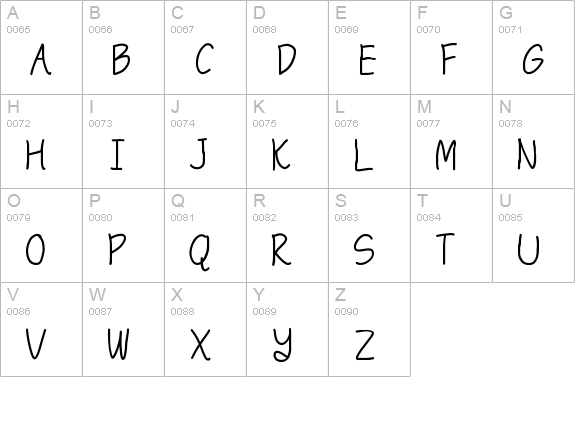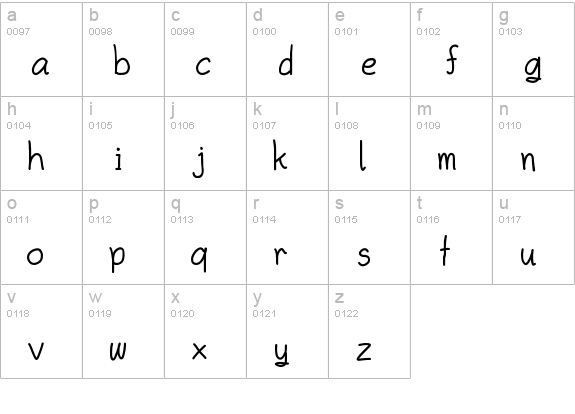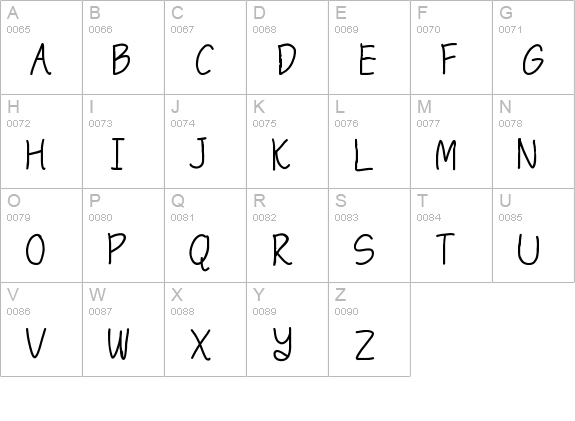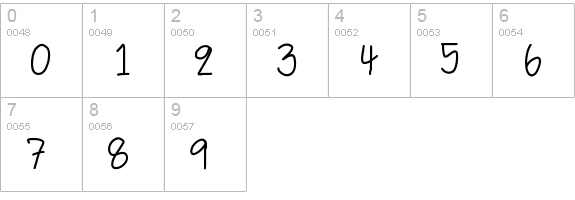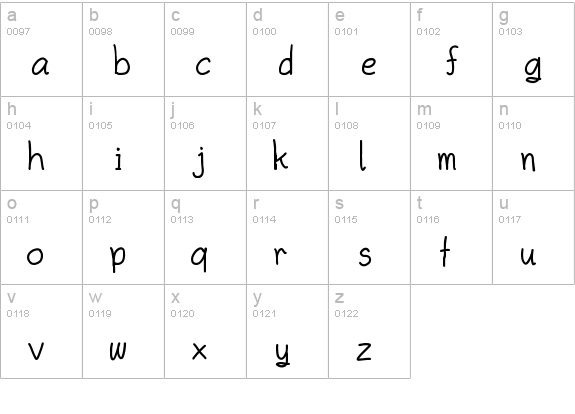
GarrklolsDumblyMadeFont is a completely free font in the Script > Brush category, designed by Garrklol. It has been downloaded 80 times and is available for Windows, Mac and Linux.
Introducing the whimsical and charming GarrklolsDumblyMadeFont, a playful and unique typeface that is sure to add a touch of creativity to your projects. This font features quirky letter shapes and a hand-drawn aesthetic that exudes a sense of fun and lightheartedness.
GarrklolsDumblyMadeFont is perfect for a variety of design applications, from greeting cards and invitations to posters and social media graphics. Its bold and eye-catching appearance will make your text stand out and leave a lasting impression on your audience.